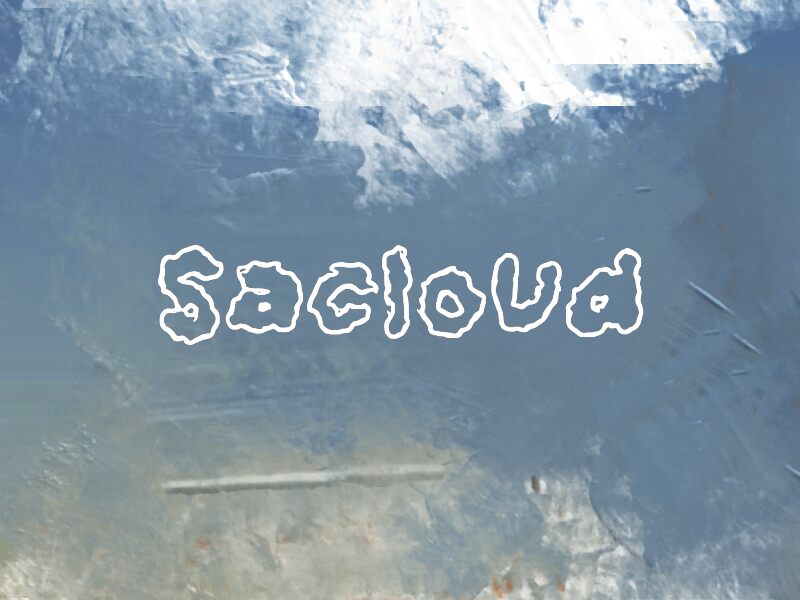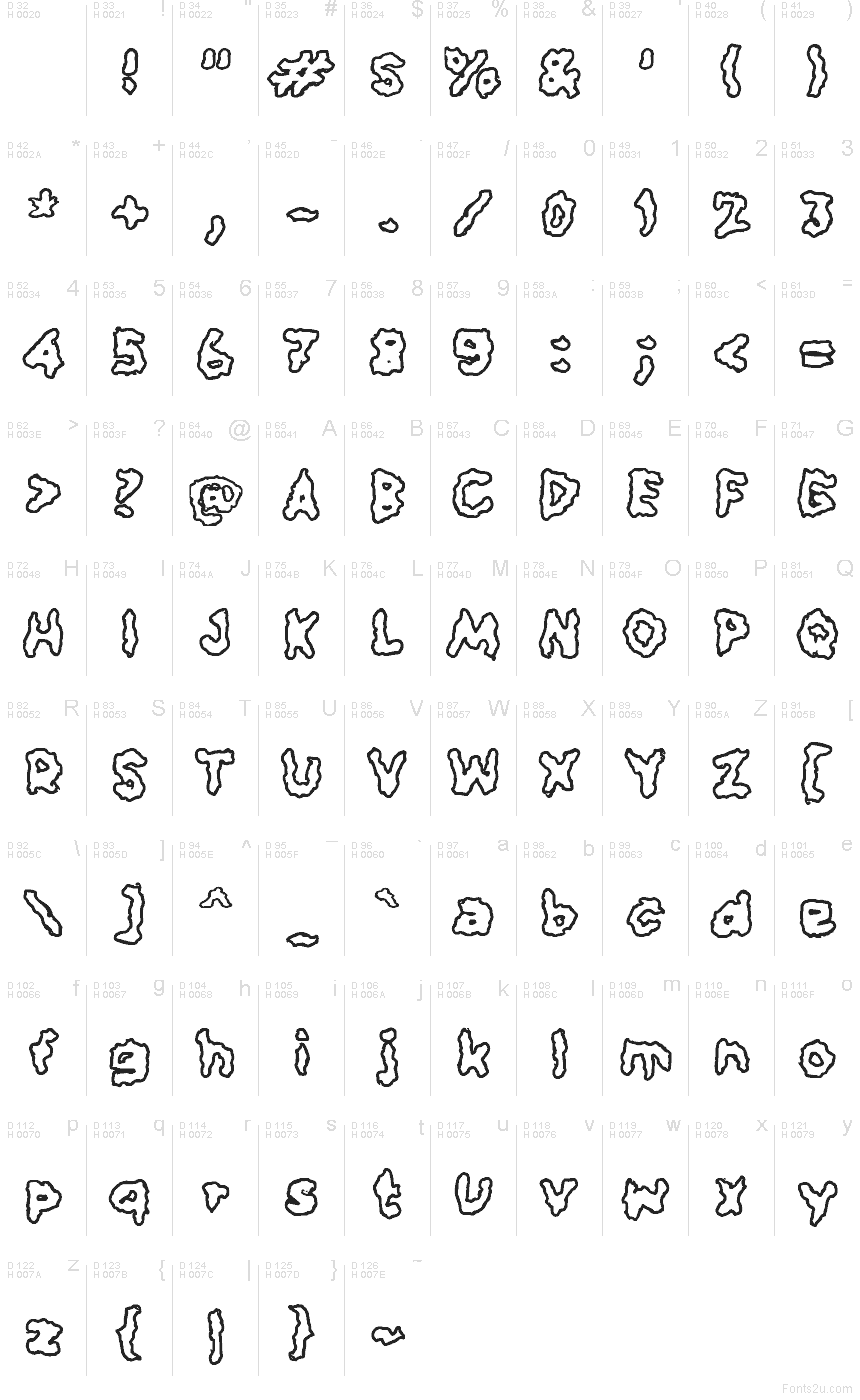
Sacloud
Sacloud font by wepfont.com is a free cartoon outlined display typeface that looks like it’s puffed up with air and wobbling on the page. Each letter feels soft, blobby, and a little bit messy, with thick, inky outlines that wiggle like slime or drifting clouds. It has a playful, slightly chaotic rhythm that instantly pulls the eye, making even short words look like fun, bouncy logos.
Using Sacloud, your headlines feel hand-drawn and unpredictable in the best way—great for kids’ posters, gooey game titles, YouTube thumbnails, comic sound effects, party invitations, and playful packaging. This free font shines when set big and bold; for body text, pair it with a clean rounded sans to keep things readable while Sacloud handles all the squishy, cartoon energy up top.